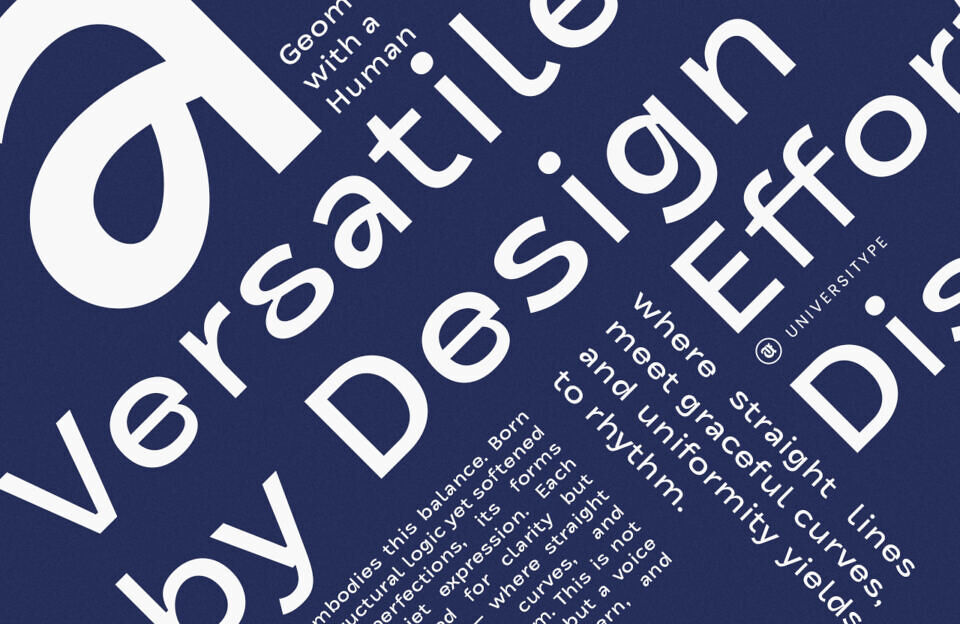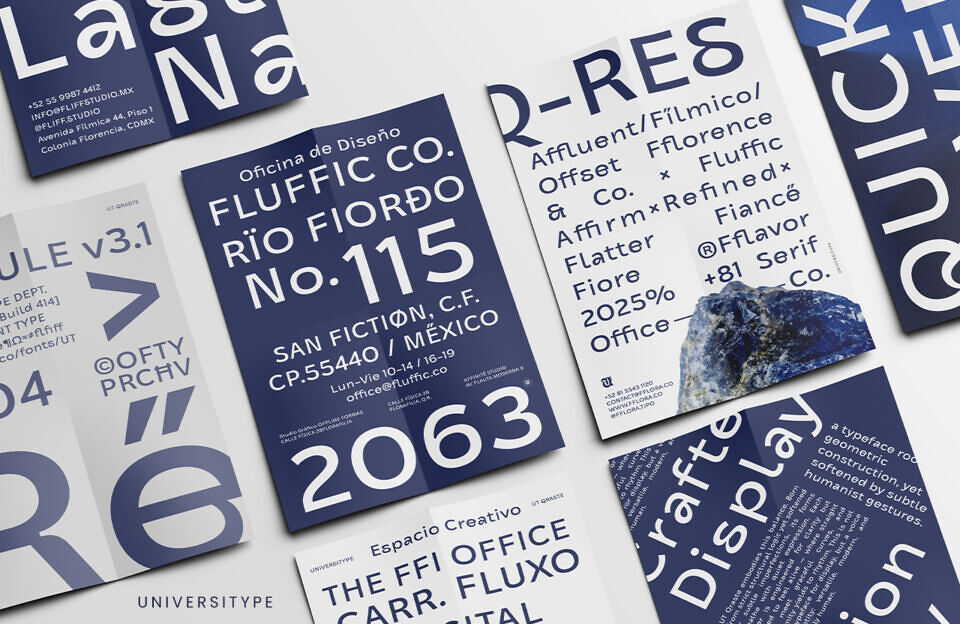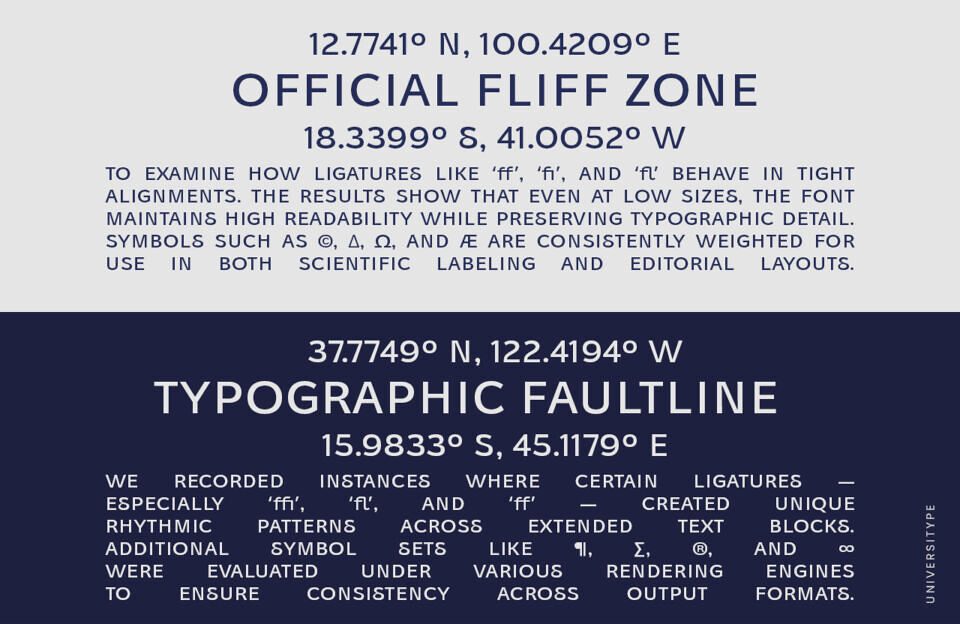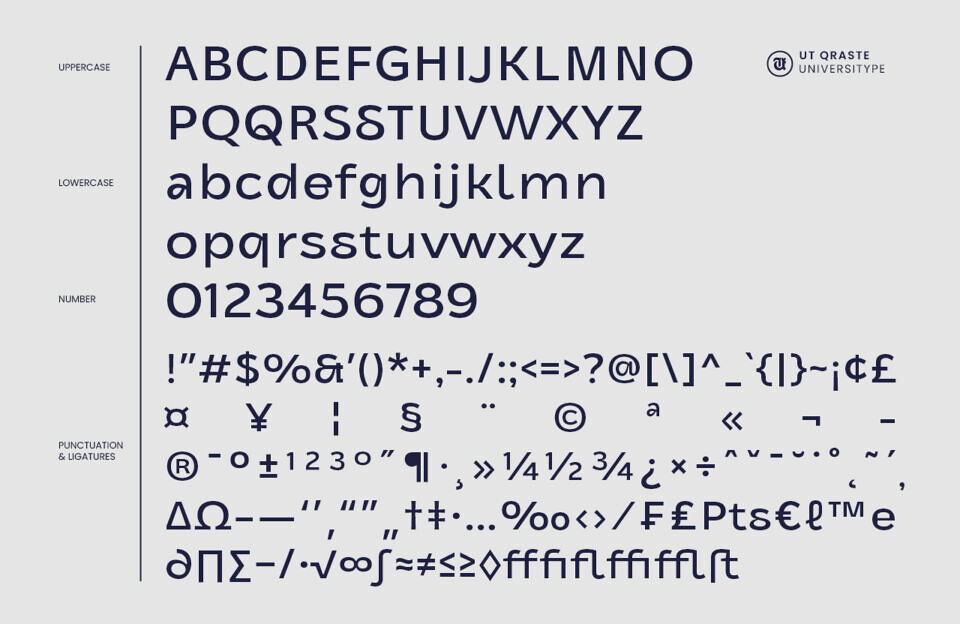
Ut Qraste Font
UT Qraste, a one-of-a-kind display font designed to capture attention without overpowering your message. This modern typeface seamlessly combines smooth curves with geometric precision, offering a clean and flexible design that can adapt to any project.
Whether you’re crafting a tech brand, designing an editorial header, or creating a striking logo, UT Qraste adds just the right amount of personality to keep your design interesting and engaging.